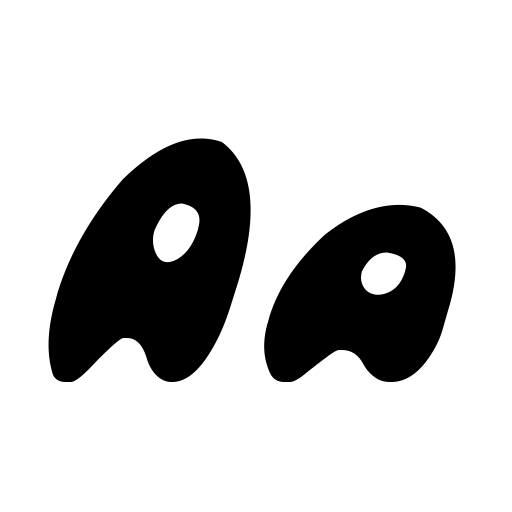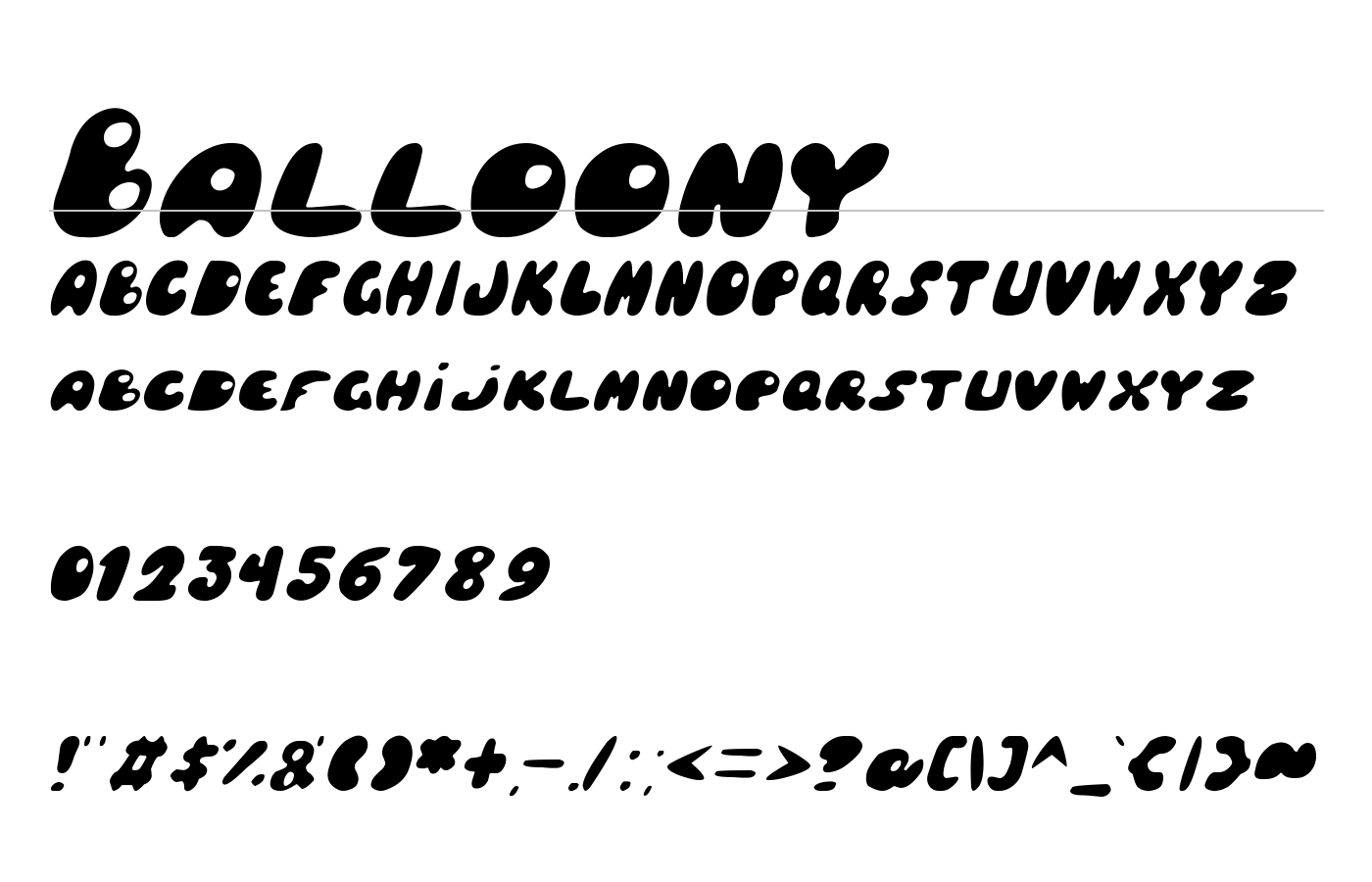
Balloony Font is a playful, bold display typeface with rounded, balloon-like letterforms that give it a fun and friendly character. Its heavy weight and soft, smooth strokes make it ideal for eye-catching headlines and decorative uses, especially in designs aimed at children, parties, or casual, upbeat branding. This font works best in large sizes for logos, posters, and packaging where a whimsical and approachable vibe is desired.
Balloony Font